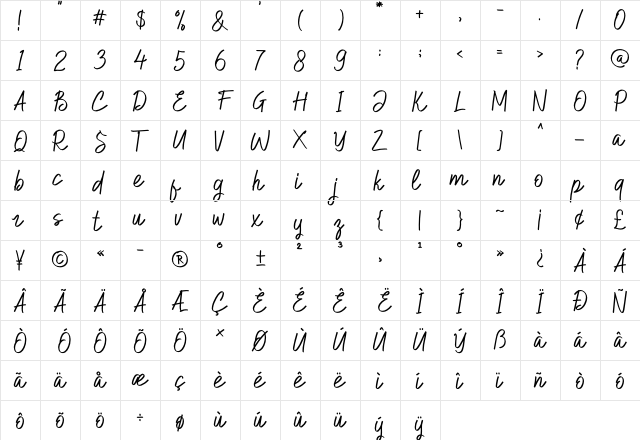
Hilburg Script Regular
Design Context for Hilburg Script Typeface
Hilburg Script brings a calligraphic fluidity to the page — its connecting strokes and expressive curves give it an unmistakably human quality.
Font Pairing: Combine Hilburg Script with a simple geometric sans for maximum contrast — the tension between flowing curves and clean structure is a classic typographic pairing.
Pro Tip: Pair Hilburg Script with a clean sans-serif for supporting text. The contrast between fluid script and geometric structure creates an elegant typographic hierarchy.